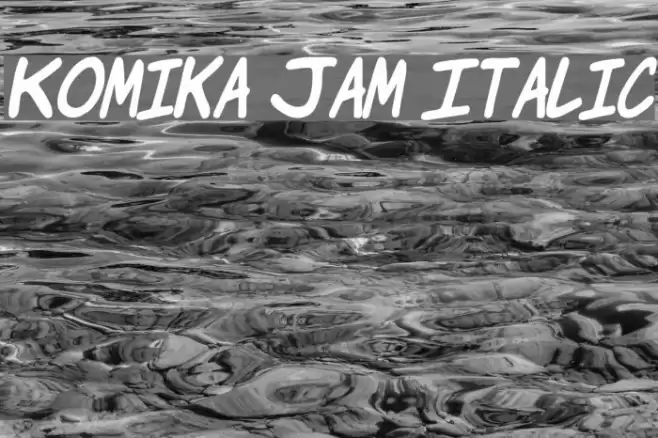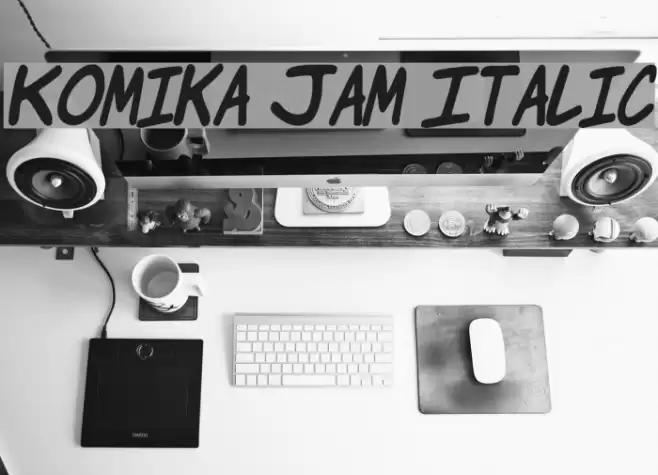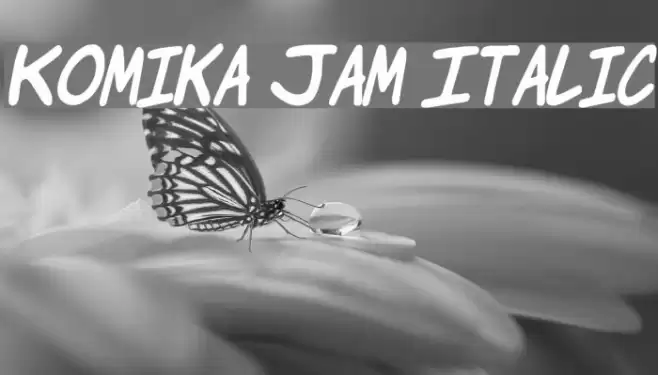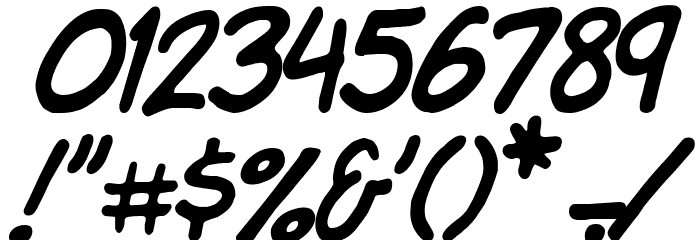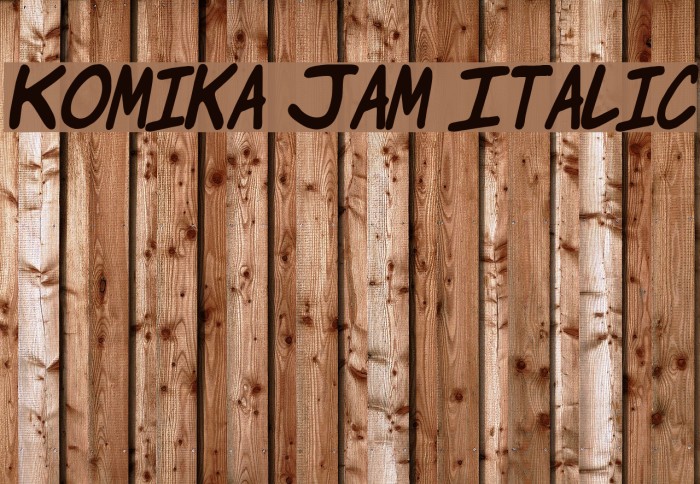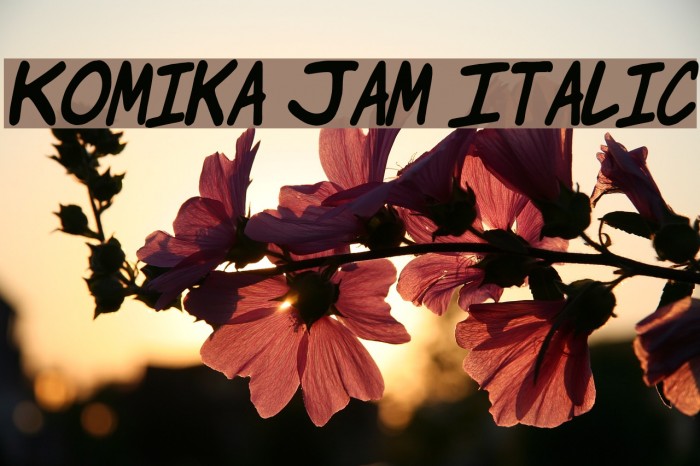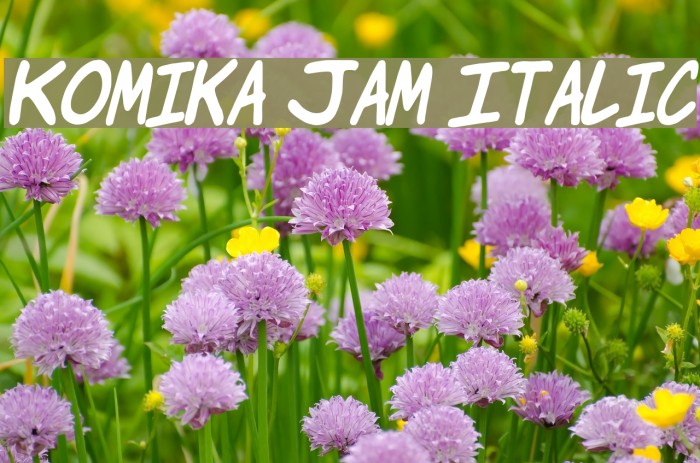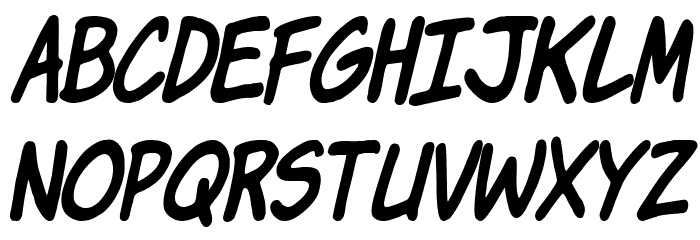
Komika Jam Italic Font
Komika Jam Italic Description
This playful and energetic font features a handwritten style with a bold and italicized appearance. The letters are slightly slanted, giving a dynamic and informal look. The strokes are thick and consistent, providing a strong presence on the page. The characters are rounded and smooth, enhancing the casual and friendly vibe. This font includes both uppercase and lowercase letters, numbers, and a variety of special characters, making it versatile for different uses. The overall design is reminiscent of comic book lettering, adding a fun and lively touch to any project.
A bold, italicized handwritten font with a playful and dynamic style from Comic fonts.
- Proposed Projects: Ideal for comic books, children's books, playful branding, and informal posters.
- Overall Style: Playful
- Use Case: Headlines, Logos, Informal Text